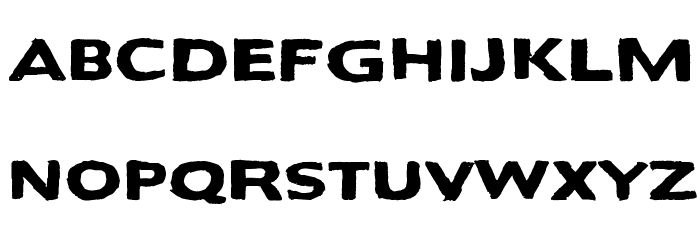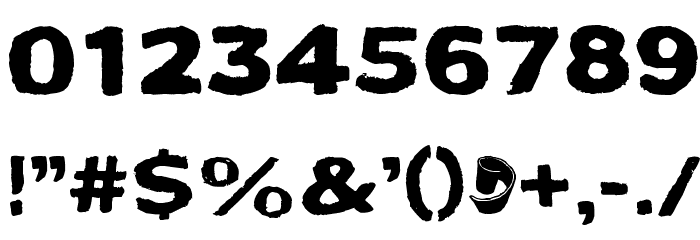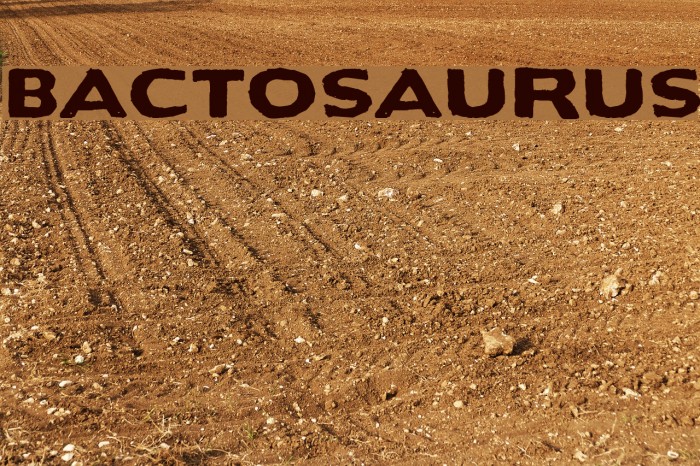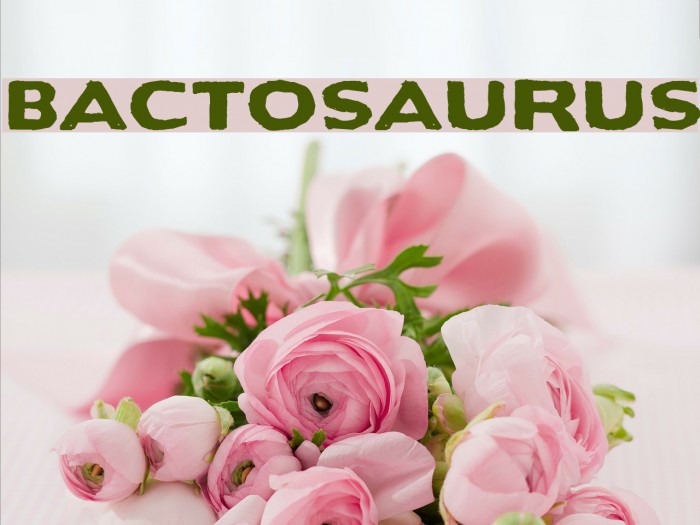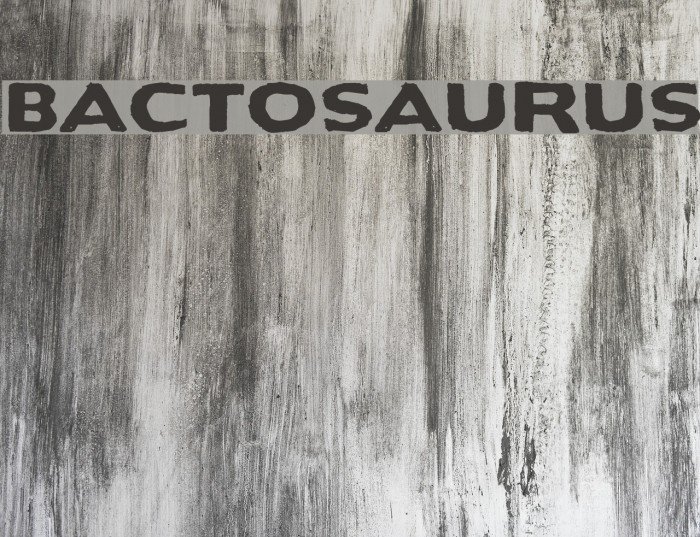
Bactosaurus Font
This font features a bold and rugged style, characterized by its thick, uneven strokes and slightly distressed appearance. The letters have a hand-drawn quality, giving them a unique and organic feel. The uppercase and lowercase letters maintain a consistent weight, providing a cohesive look across the alphabet. The numerals and special characters follow the same design principles, ensuring uniformity throughout. This font is ideal for projects that require a strong, impactful presence with a touch of personality.
A bold, rugged font with a hand-drawn, distressed appearance.
- Proposed Projects: Ideal for posters, branding, packaging, and any design needing a bold, organic touch.